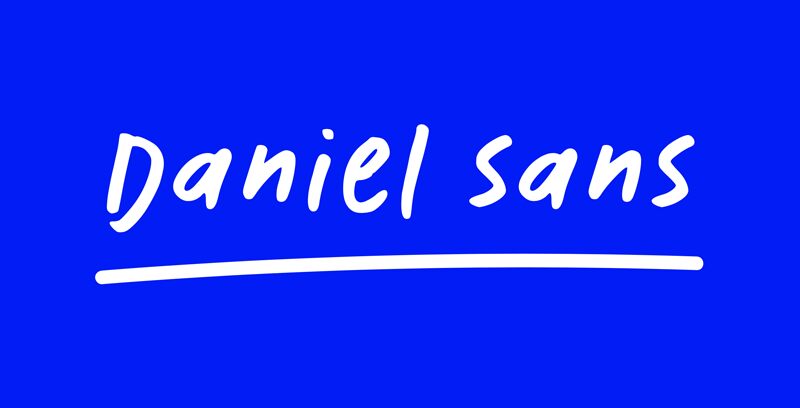
Daniel Sans Regular
Daniel Sans font by Daniel Designs is a free handwritten font that combines a casual, modern script aesthetic with an approachable vibe. Its laid-back mood gives it both authenticity and flexibility when used for personal and professional projects. The Daniel hand has a natural flow to its characters, further benefiting from its smooth transitions.
This fantastic resource can be added to digital marketing content such as newsletters, email signatures, social media banners, video titles, Instagram stories highlights, icons; personal branding logos and typography; handwritten quotes for T-shirt designs; coffee cups; notebooks or journals.